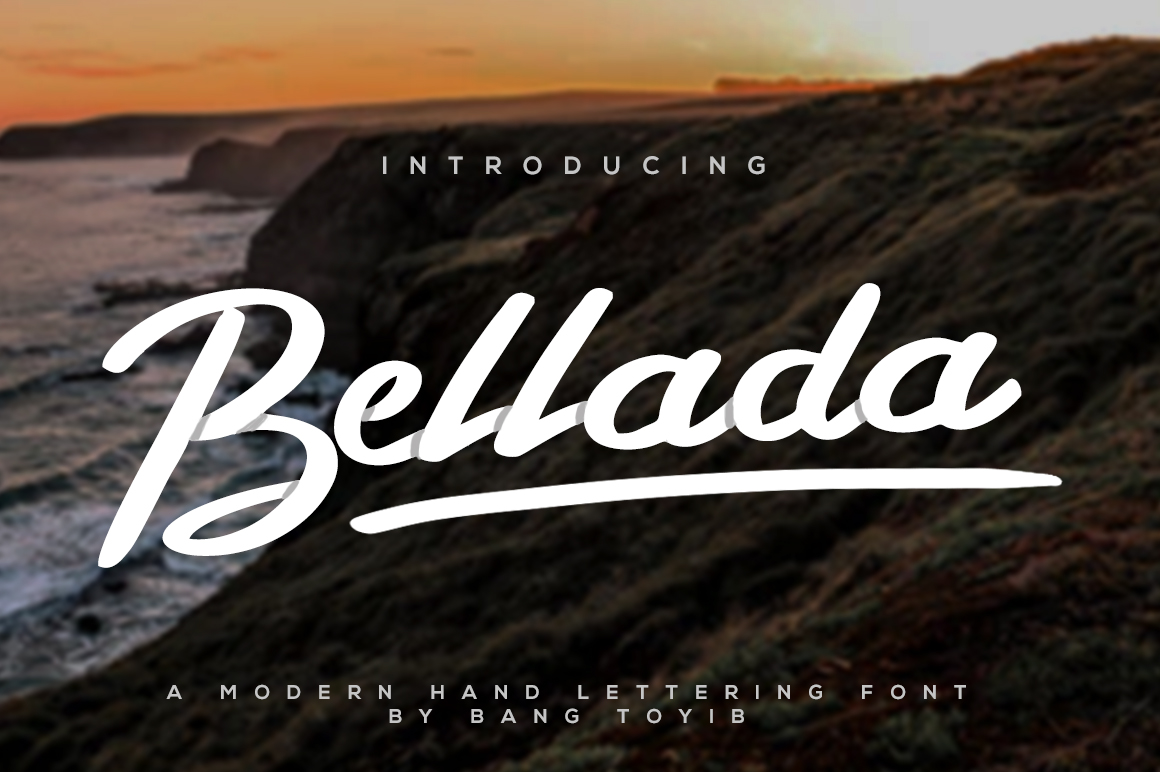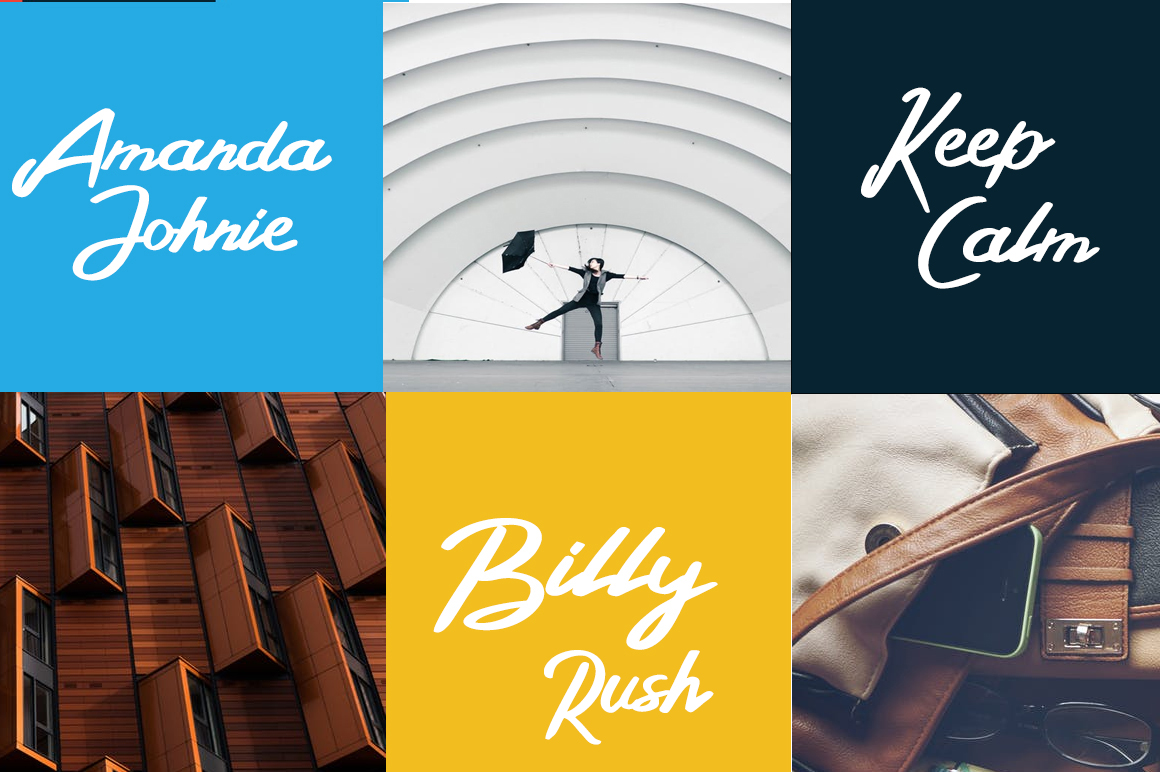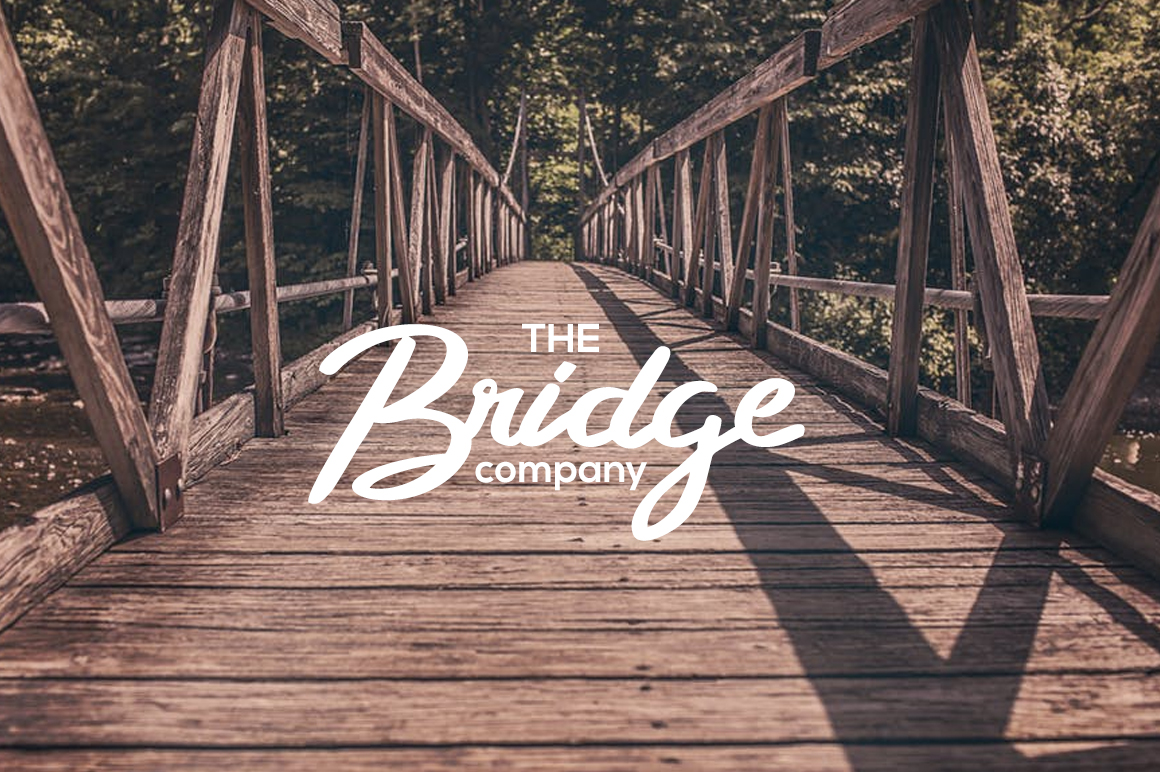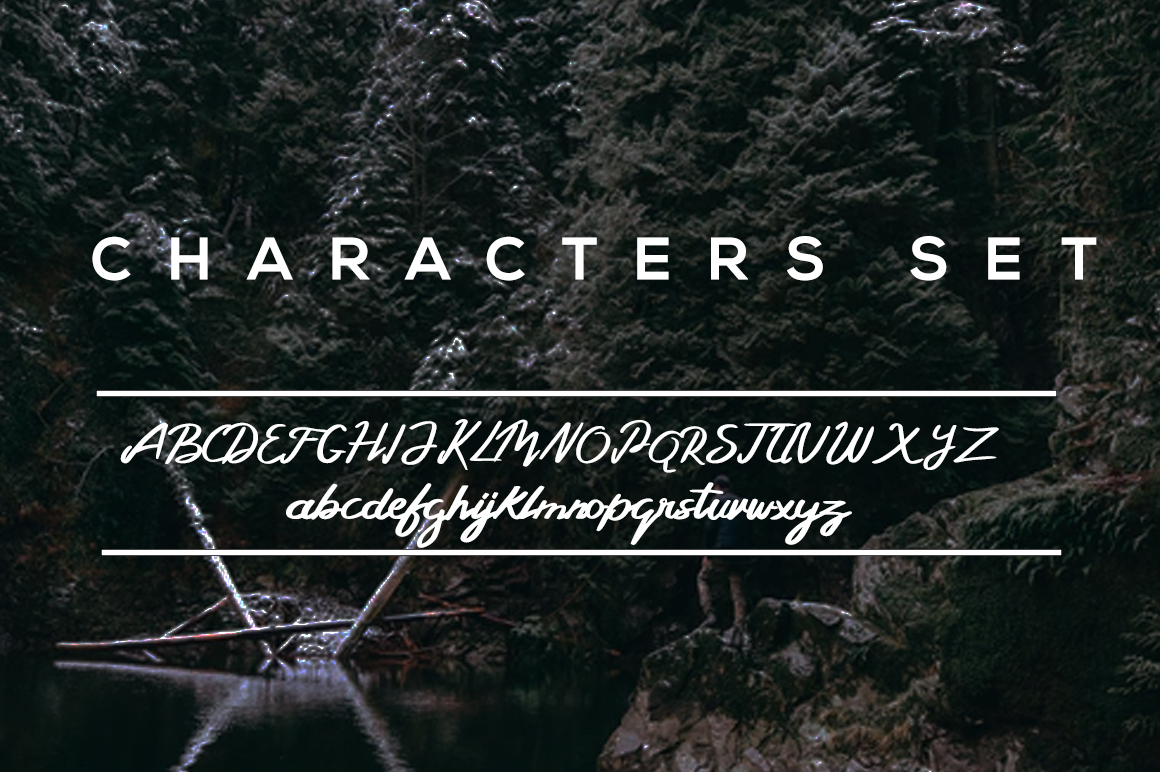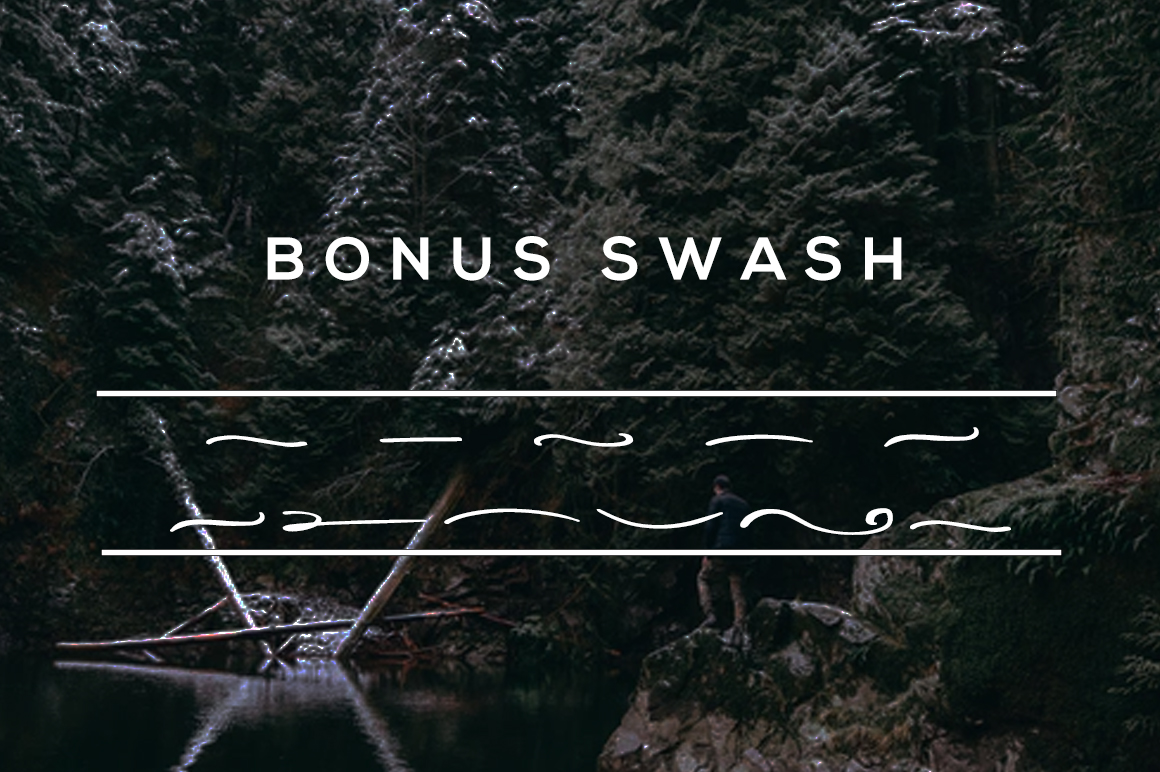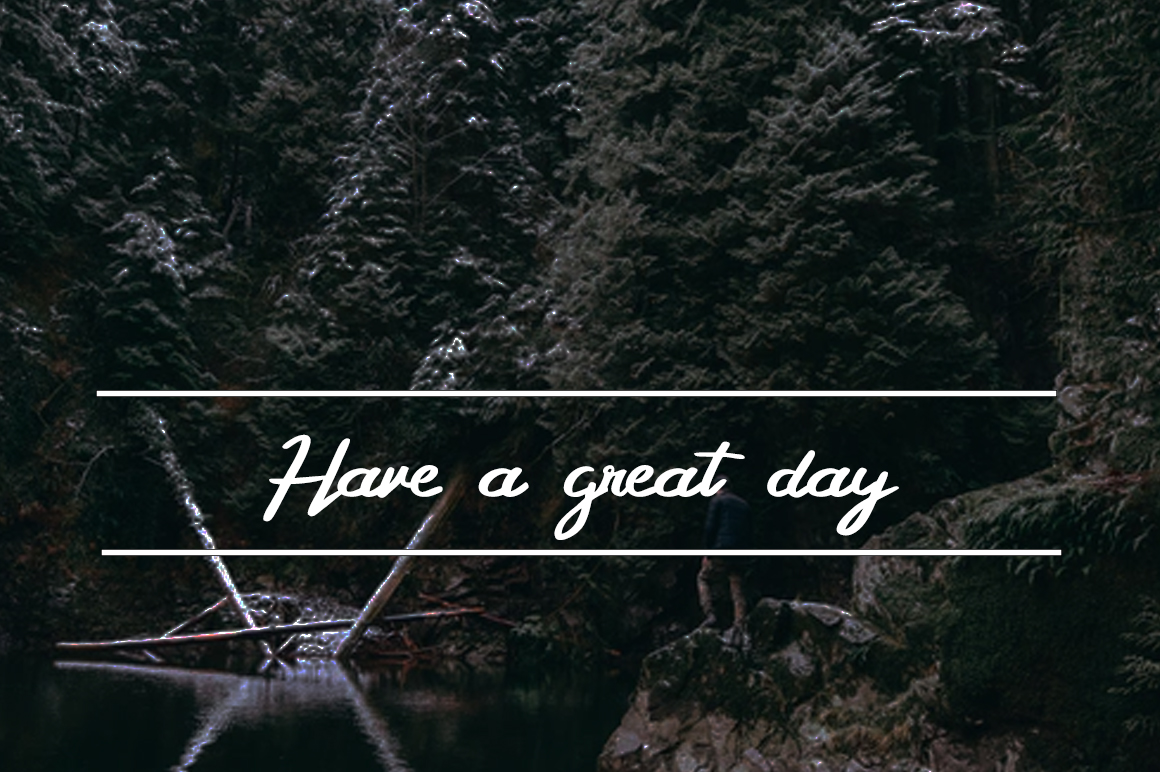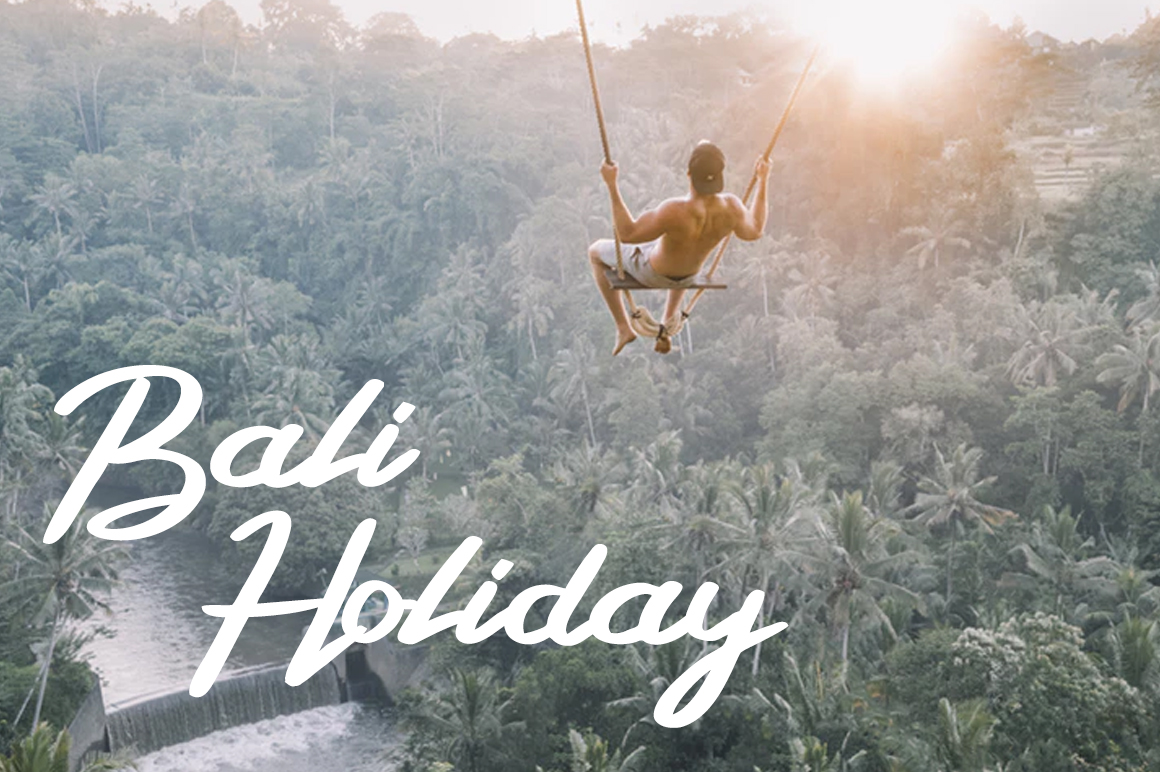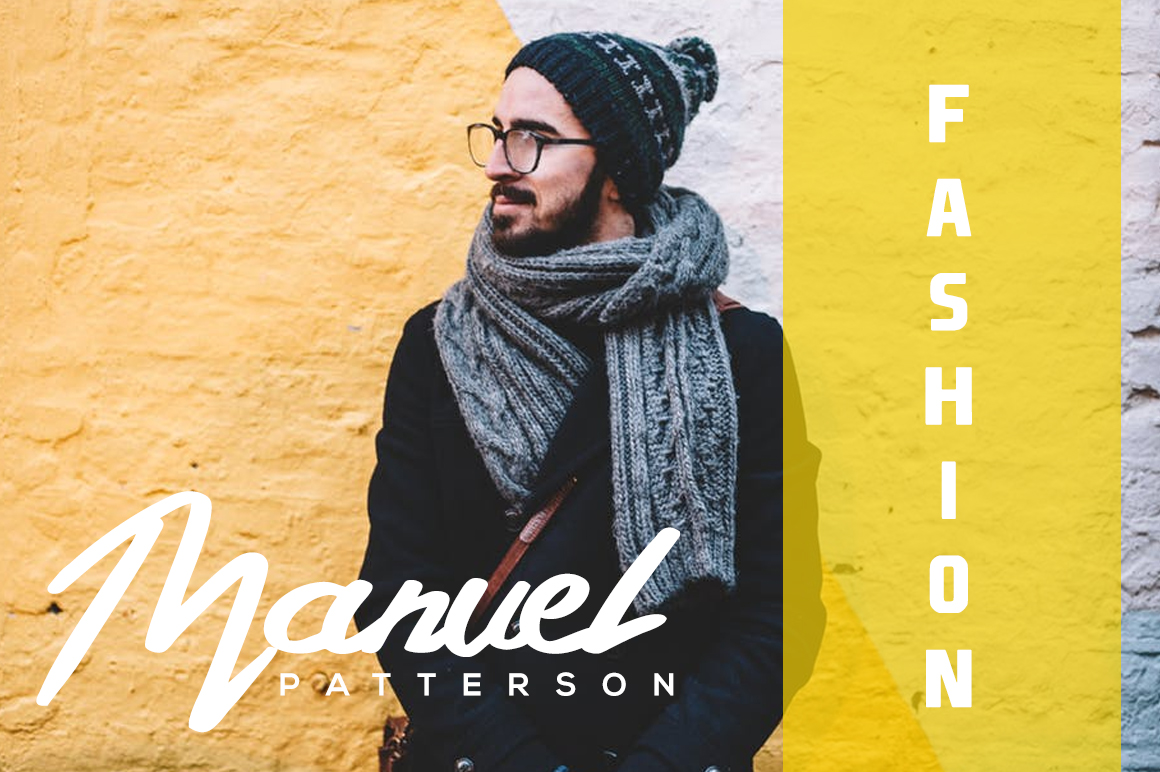
Bellada + Extras Font
Bellada is a beautiful handmade brush font, with a bold weight perfect for adding some romance and charm to your designs. This gorgeous and adaptable script functions most strongly as a display or headline font.